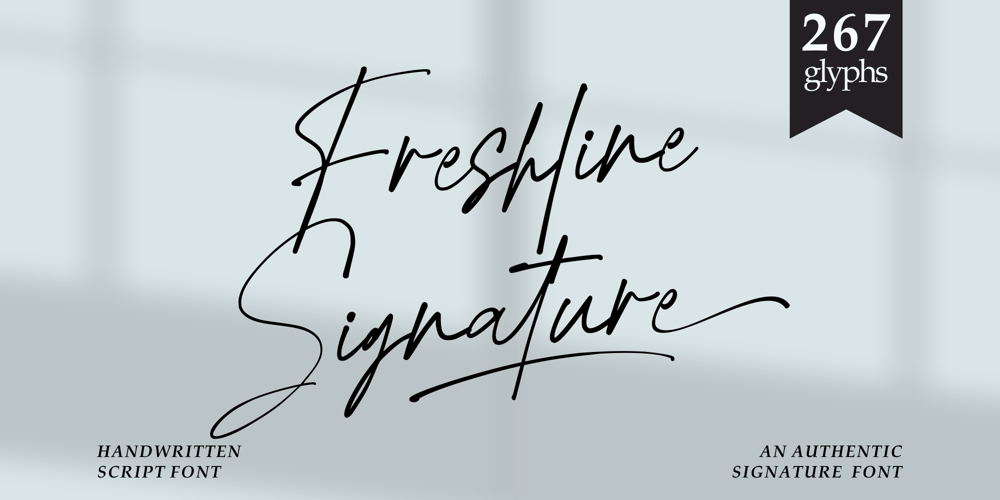
Freshline Signature
Freshline Signature font
Freshline Signature Font Family was designed by Muhammad Mujibulloh and published by MJB Letters. Freshline Signature contains 1 styles and family package options. Freshline Signature is an authentic handwritten script that beautifully captures the essence of natural pen strokes. With over 250 glyphs, it offers a rich variety of characters that seamlessly combine thick and thin strokes for a truly organic feel. This font exudes a natural, handwritten charm, making it perfect for elegant branding, stylish logos, or personal signatures.Freshline Signature comes with a variety of features that enhance its versatility, including ligatures for smooth connections, beginning and ending swashes, and underline swashes to give your text that extra flair. Whether for logos, branding, packaging, or quotes, this font adds an exquisite, personal touch to any design. It also supports multiple languages, making it an excellent choice for international projects.